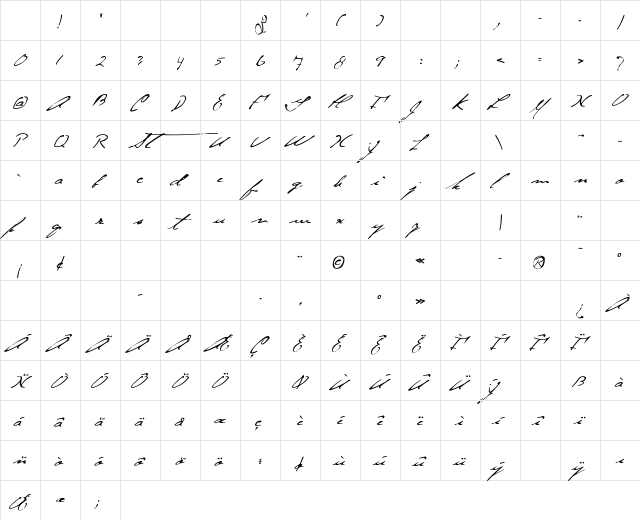
Jellyka Gare de Chambord Regular Free Font
Jellyka Gare de Chambord Regular
Designer: Jellyka Nerevan
Complete Jellyka Gare de Chambord Regular glyph index. Displaying only characters natively supported by Jellyka Gare de Chambord Regular font.
Design Context for Jellyka Gare de Chambord
Jellyka Gare de Chambord is a composed and adaptable typeface that performs quietly and consistently across a wide range of design contexts.